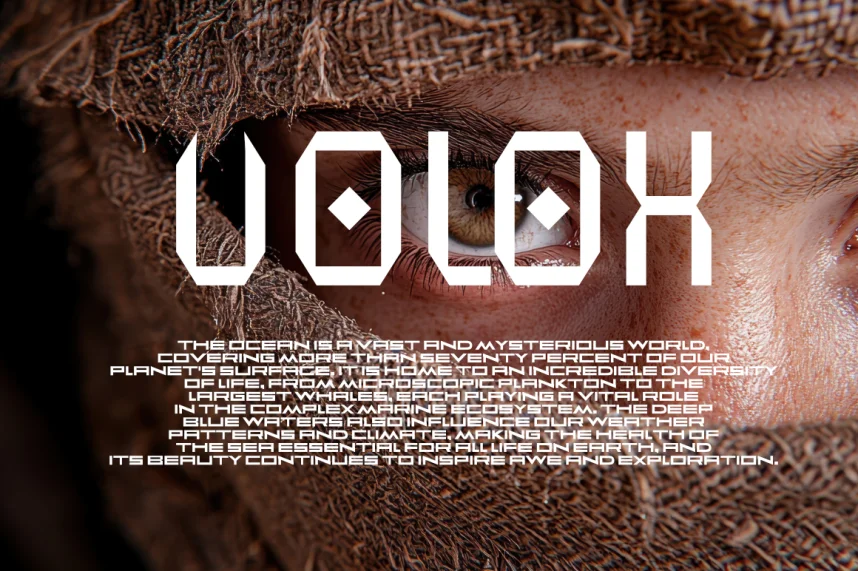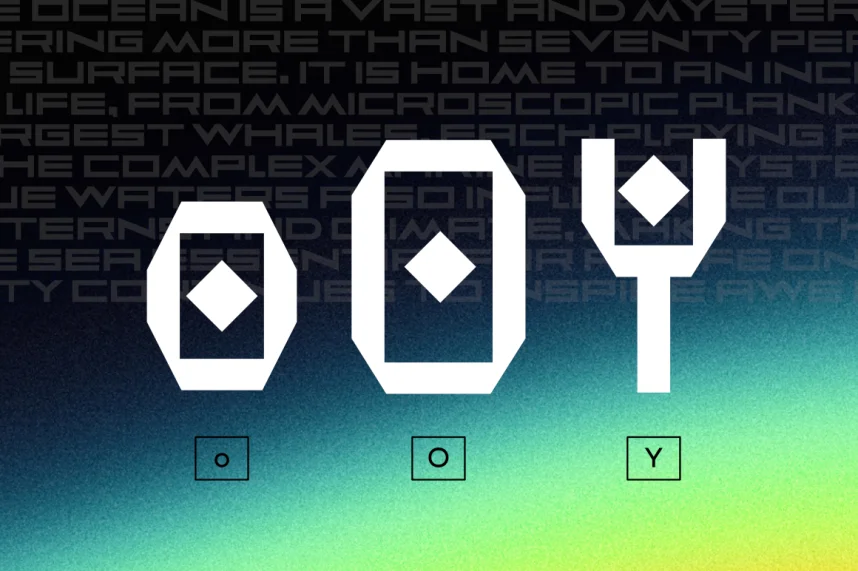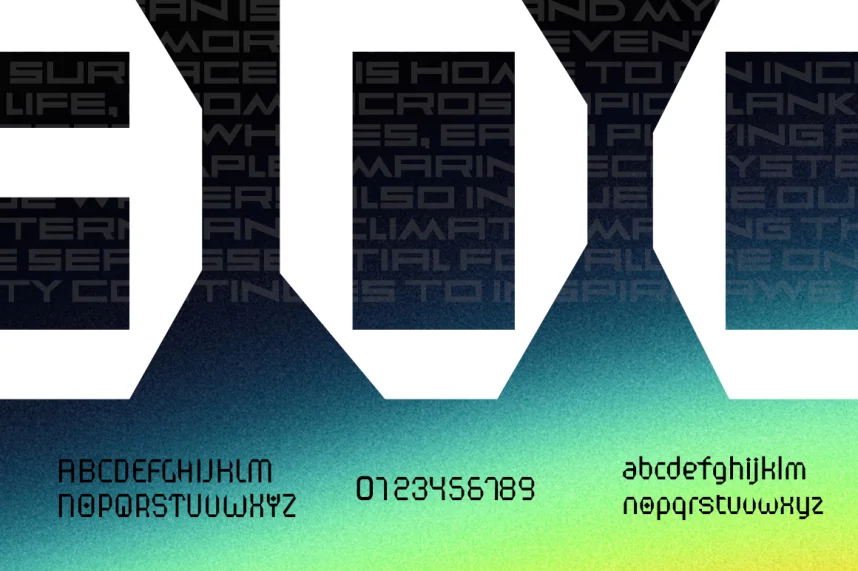
Simpanse X Font is a contemporary sans-serif typeface designed for clarity, legibility, and brand consistency across digital and print media. Its structured letterforms help address readability challenges in headlines and body text.
This sans-serif font features uniform stroke widths, open counters, and minimalistic terminals. Its geometric shapes create a clean, modern visual impression suitable for editorial design, websites, and corporate branding. Alternate characters and weights provide typographic flexibility for various creative projects.